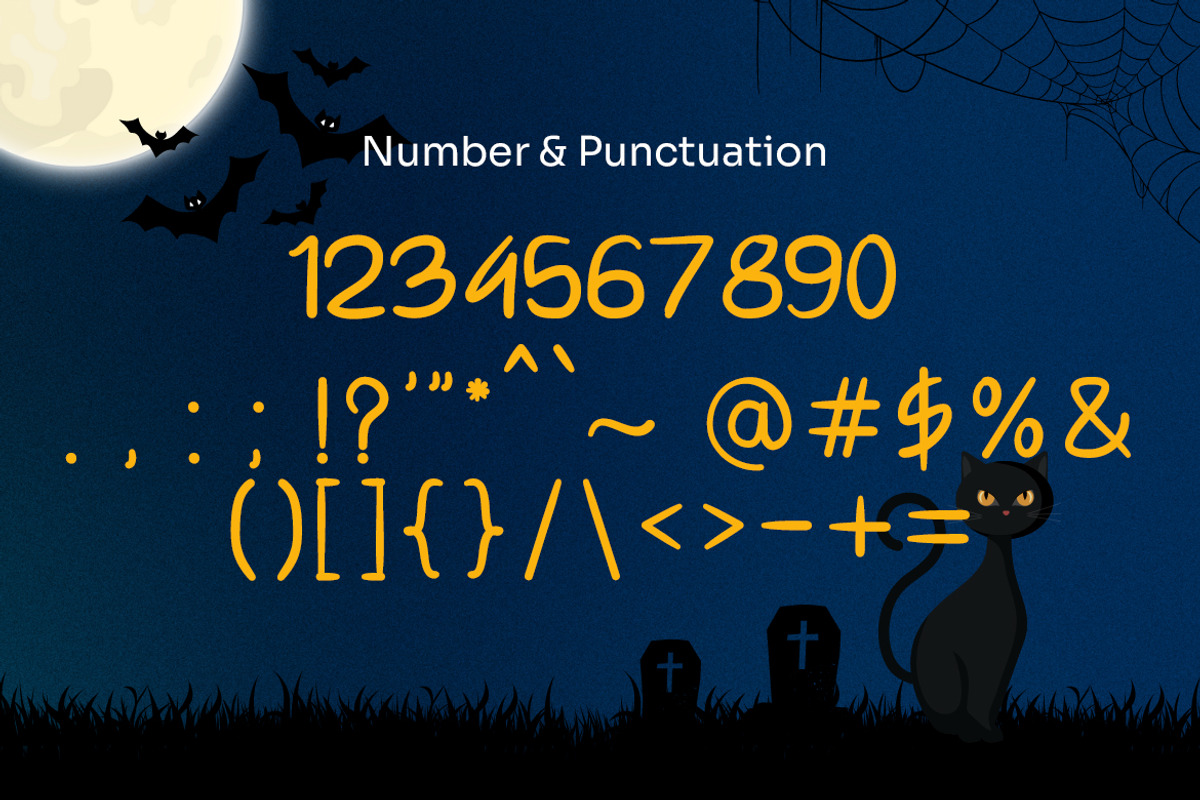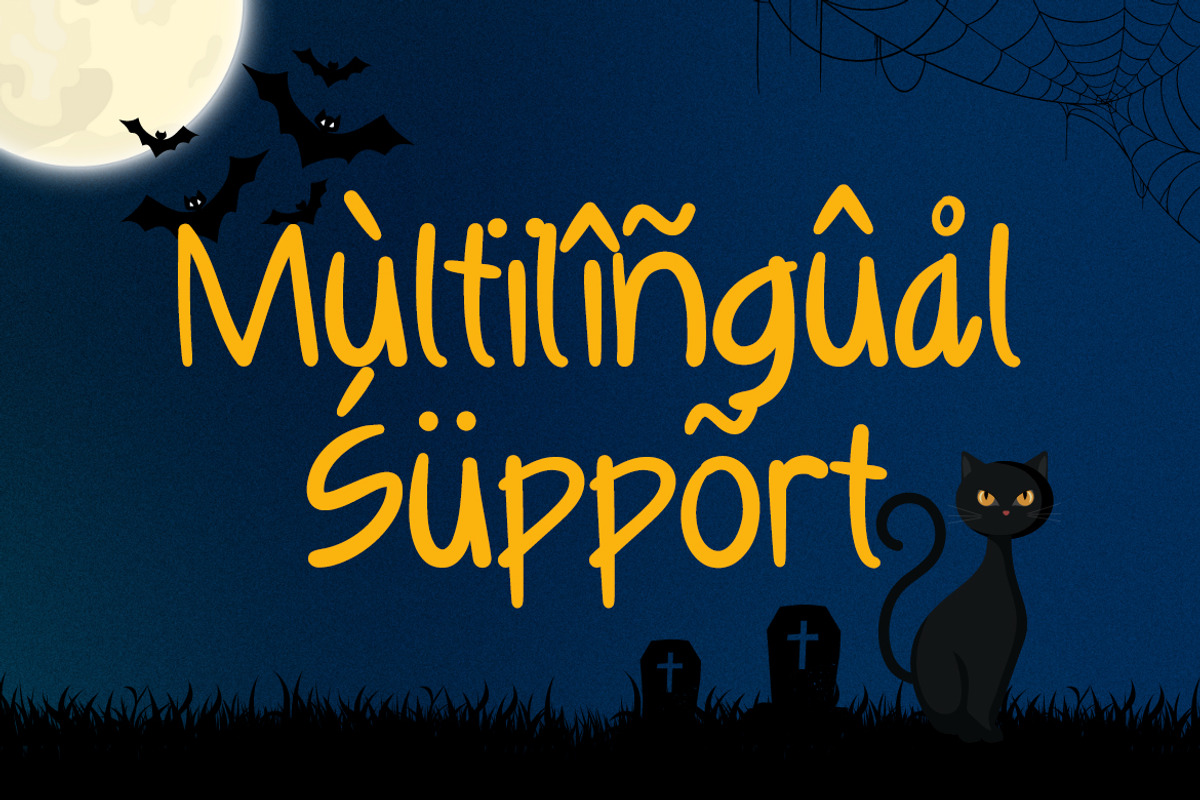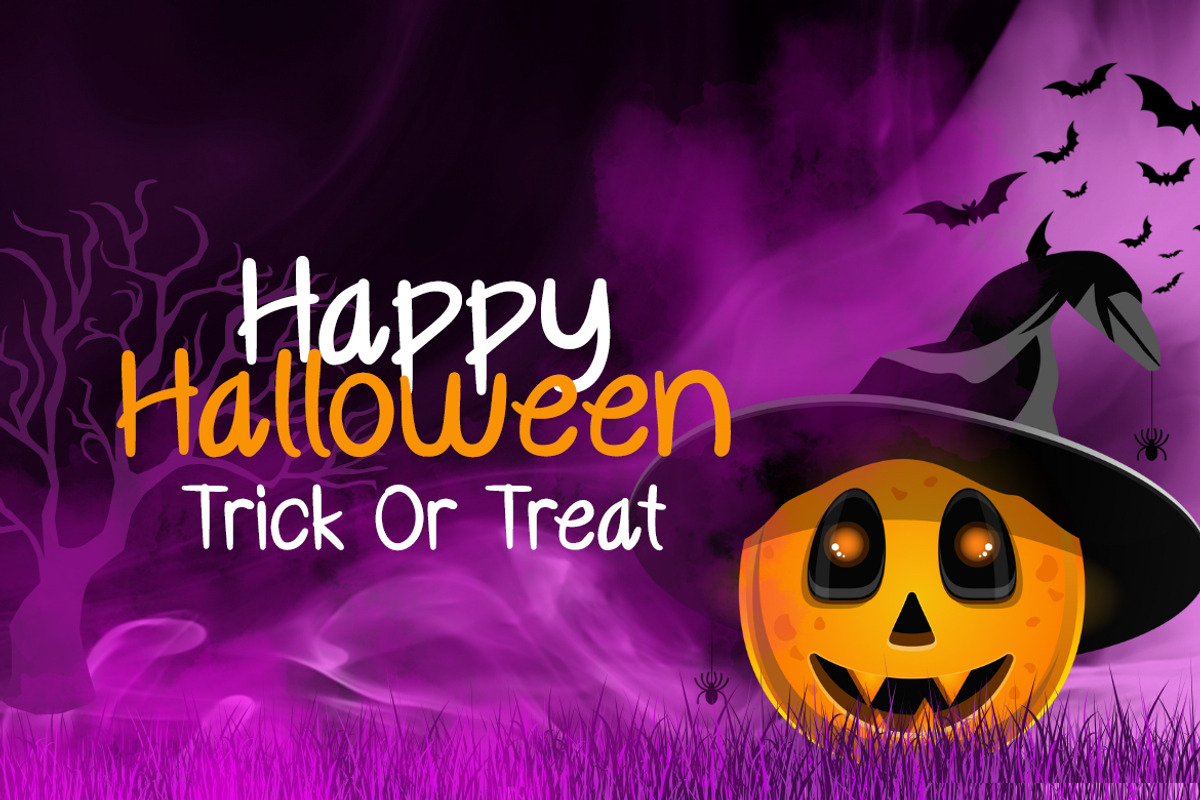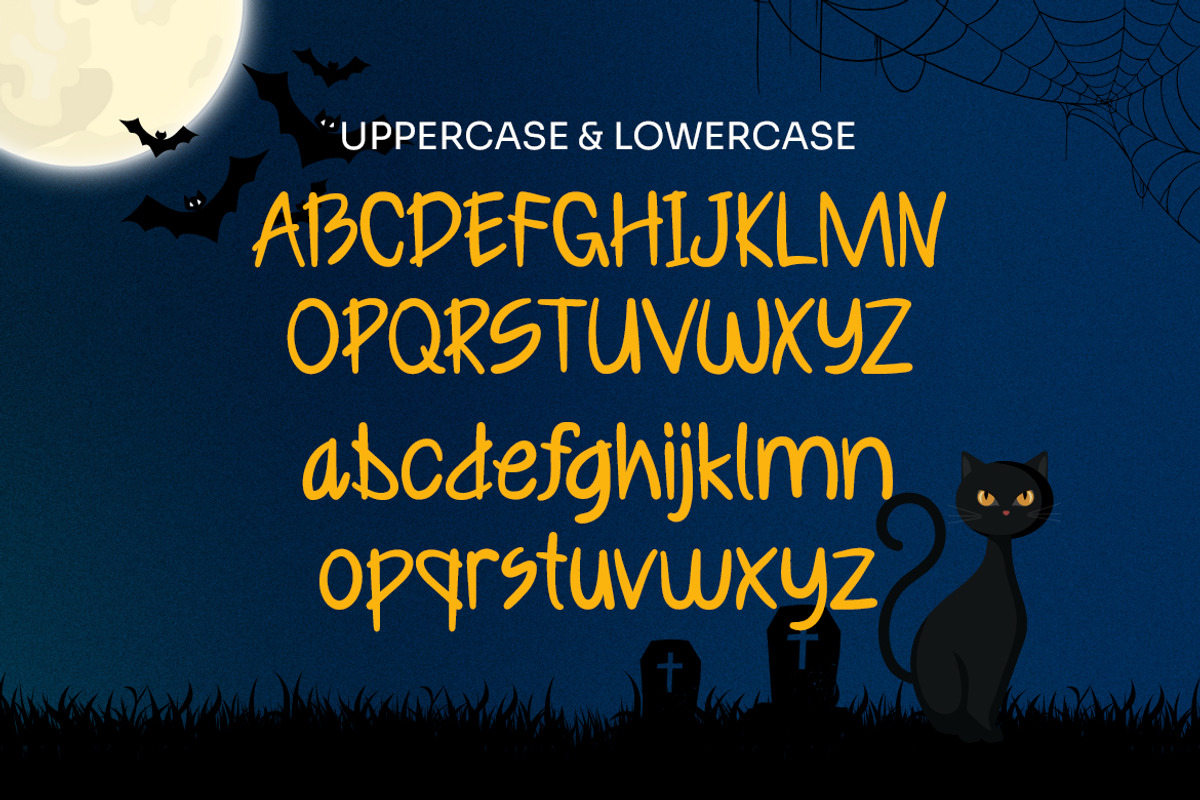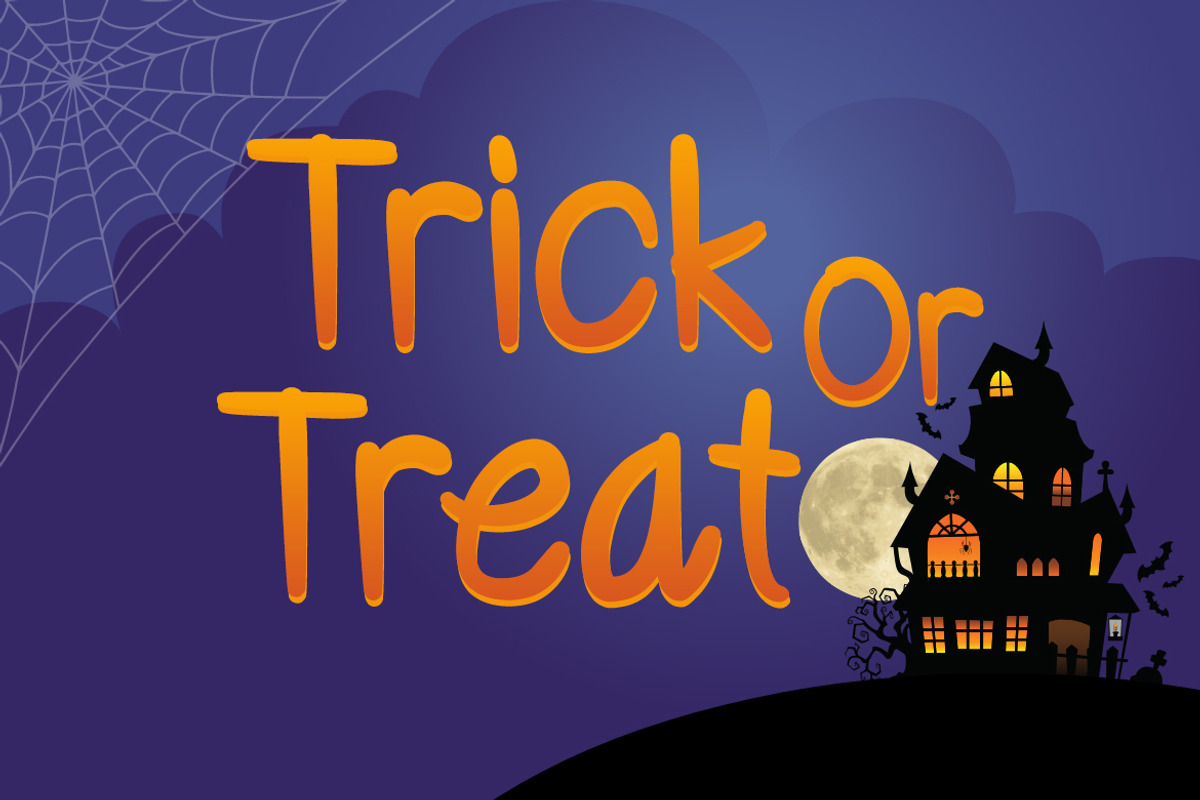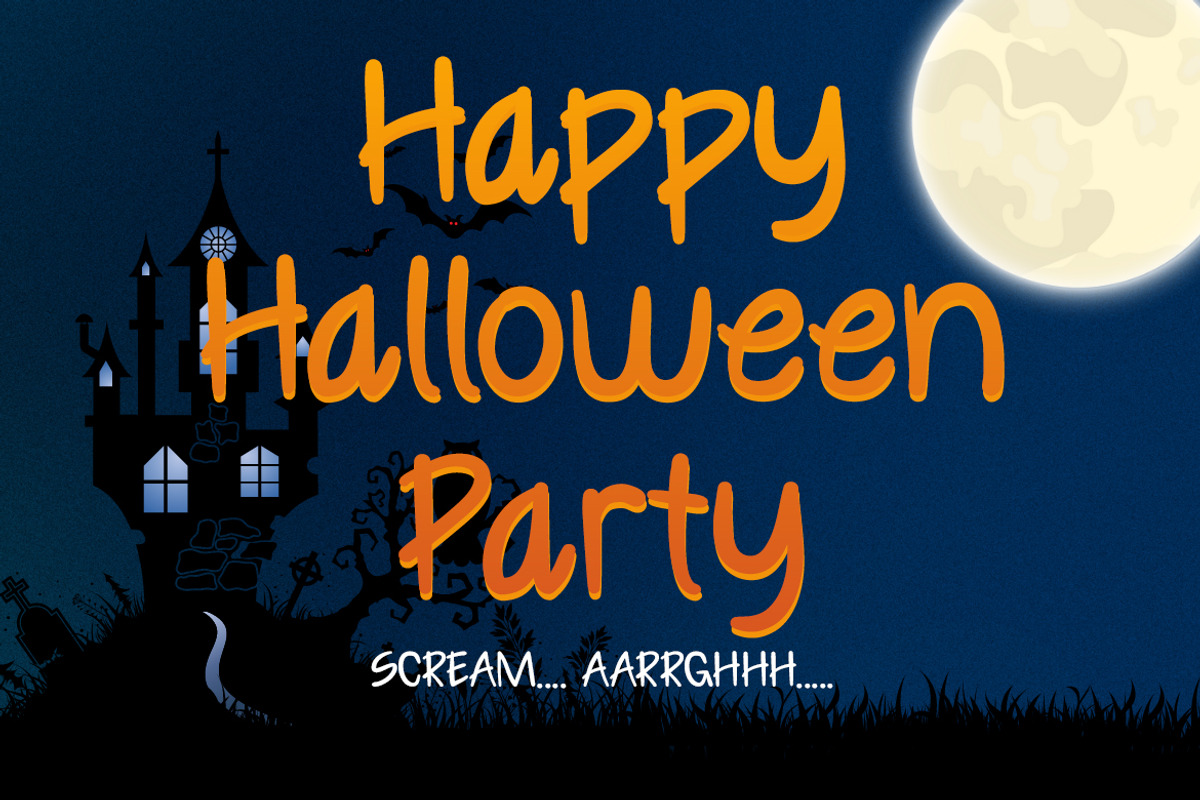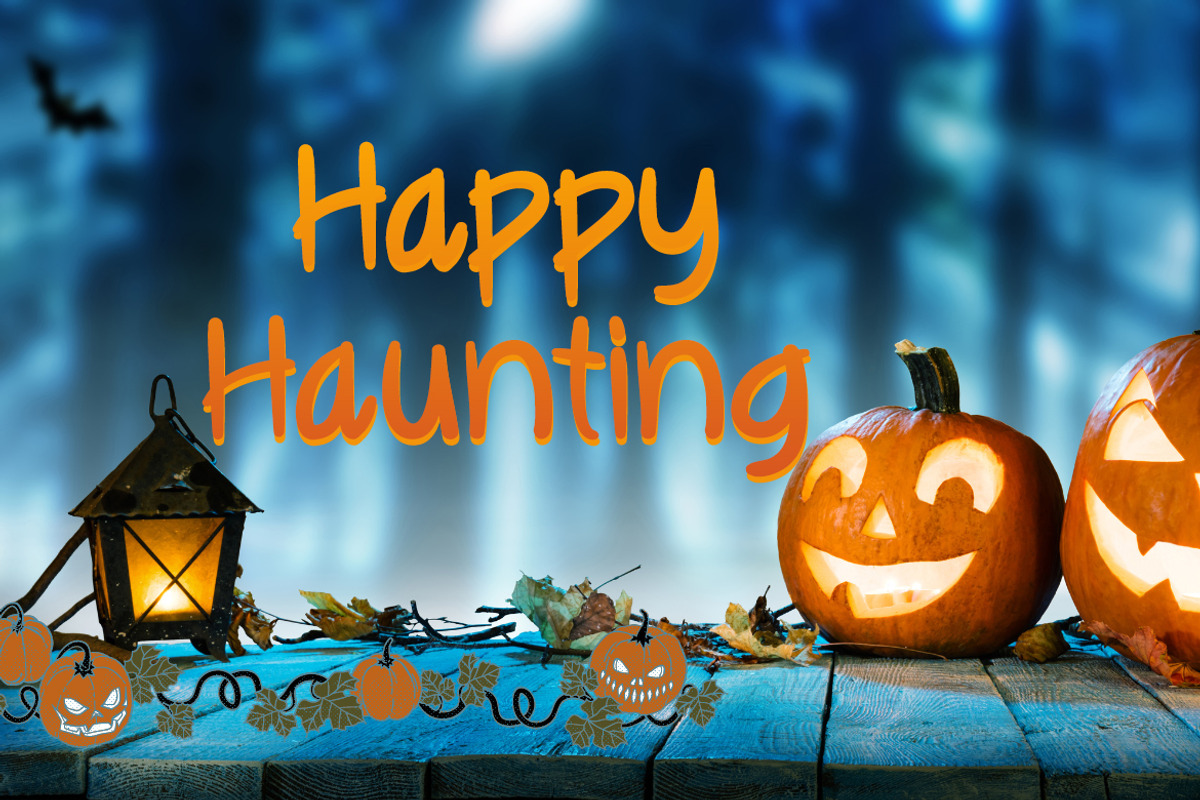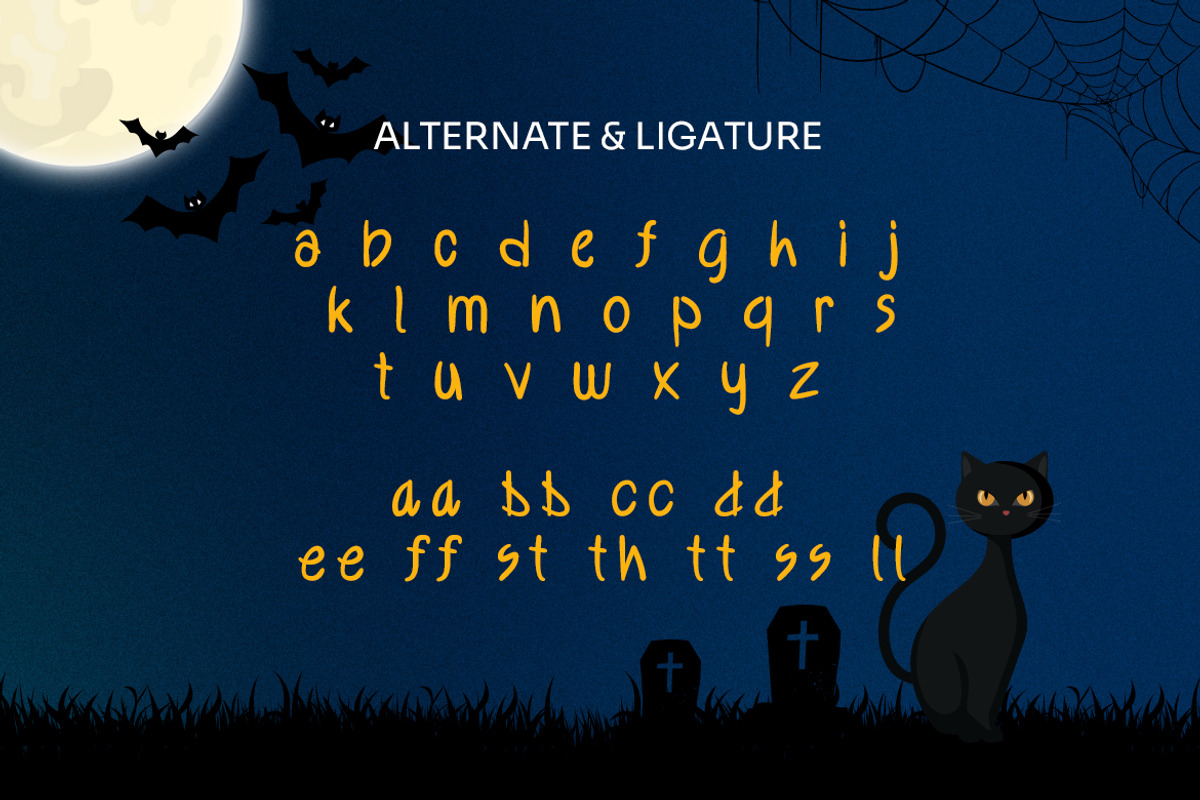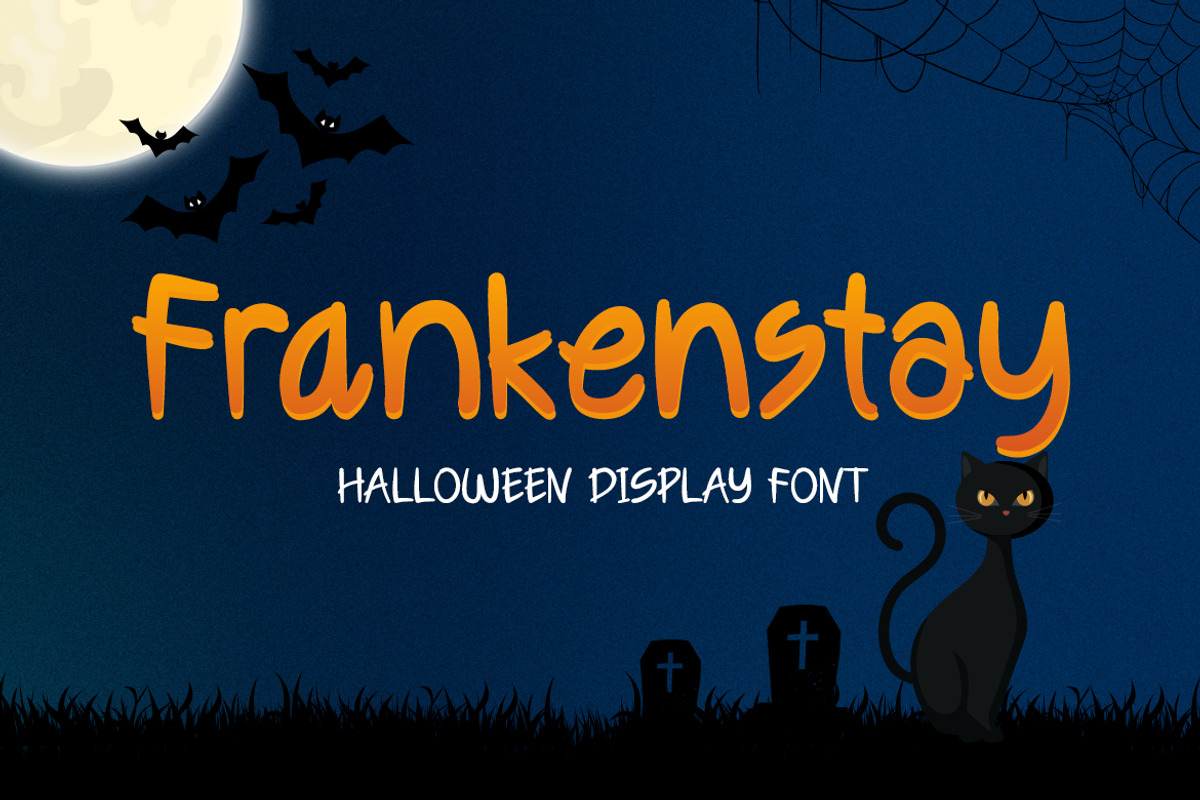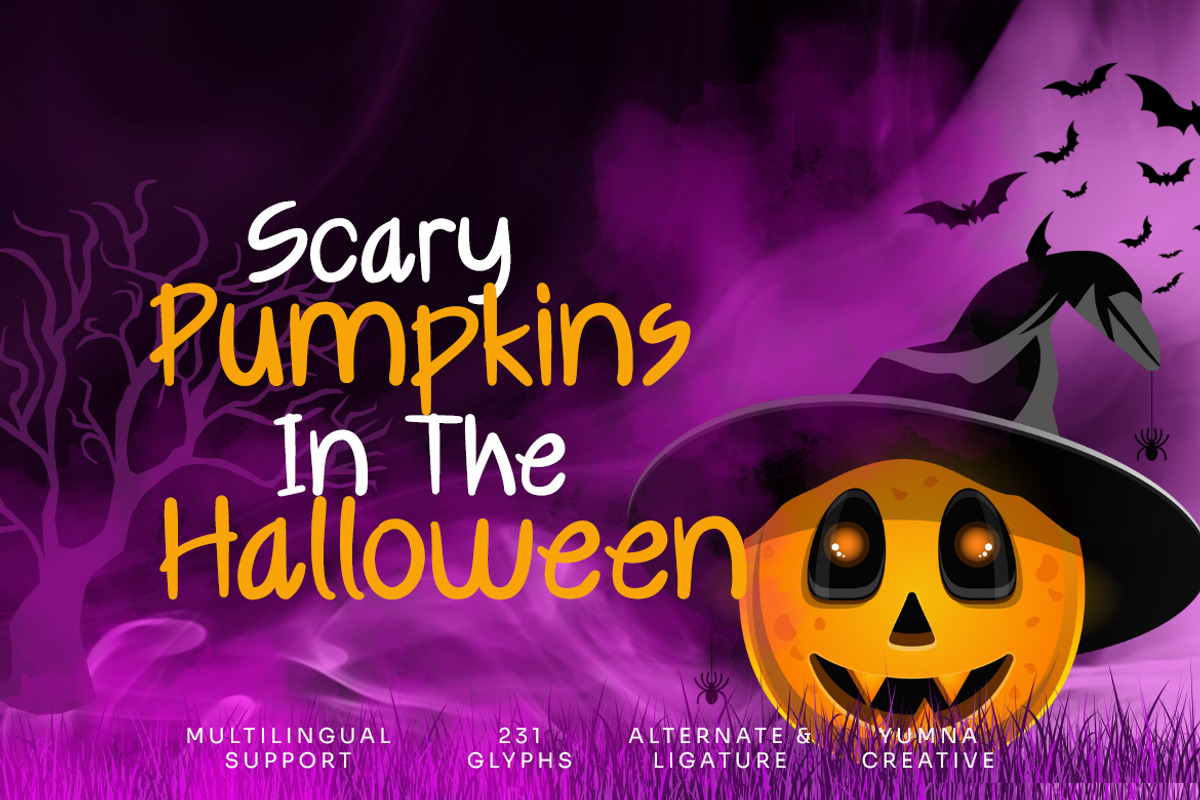
Frankenstay - Halloween Font
Introducing Frankenstay - Halloween Font
This Font is a delicate, elegant and flowing handwritten font. It has beautiful and well as a unique blend of ligatures a letter, so that the authors compose it with a and little swirly embedding, so that a modern font is formed and ready to make a statement by adding elegant and unique flair to your next design project. Add it to your most creative ideas and notice how it makes them come alive!
• Ligature and Alternate